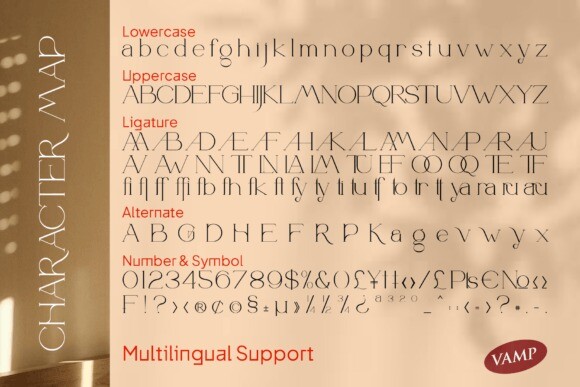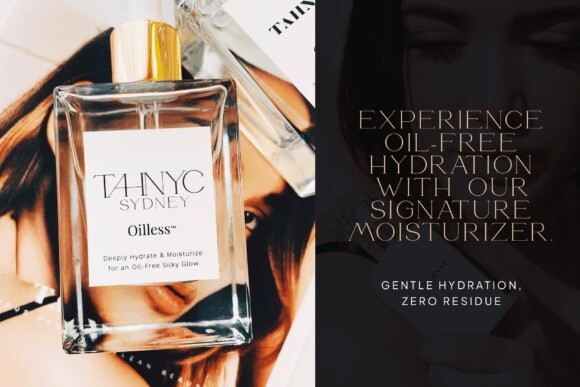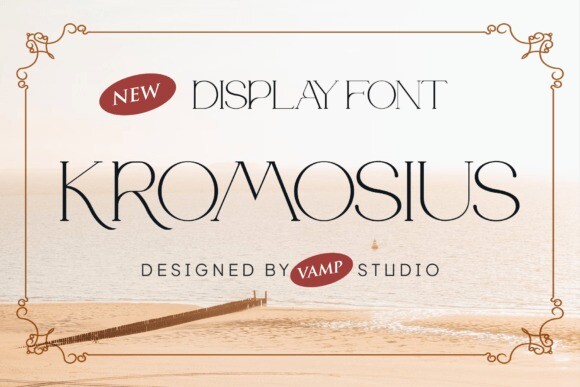
Kromosius Font
Kromosius Font is a stylish, modern serif display font that commands attention with its sleek lines and sophisticated demeanor. Its sharp serifs and balanced letterforms create a sense of refinement and authority, making it perfect for headlines, logos, and editorial designs seeking a touch of contemporary elegance.